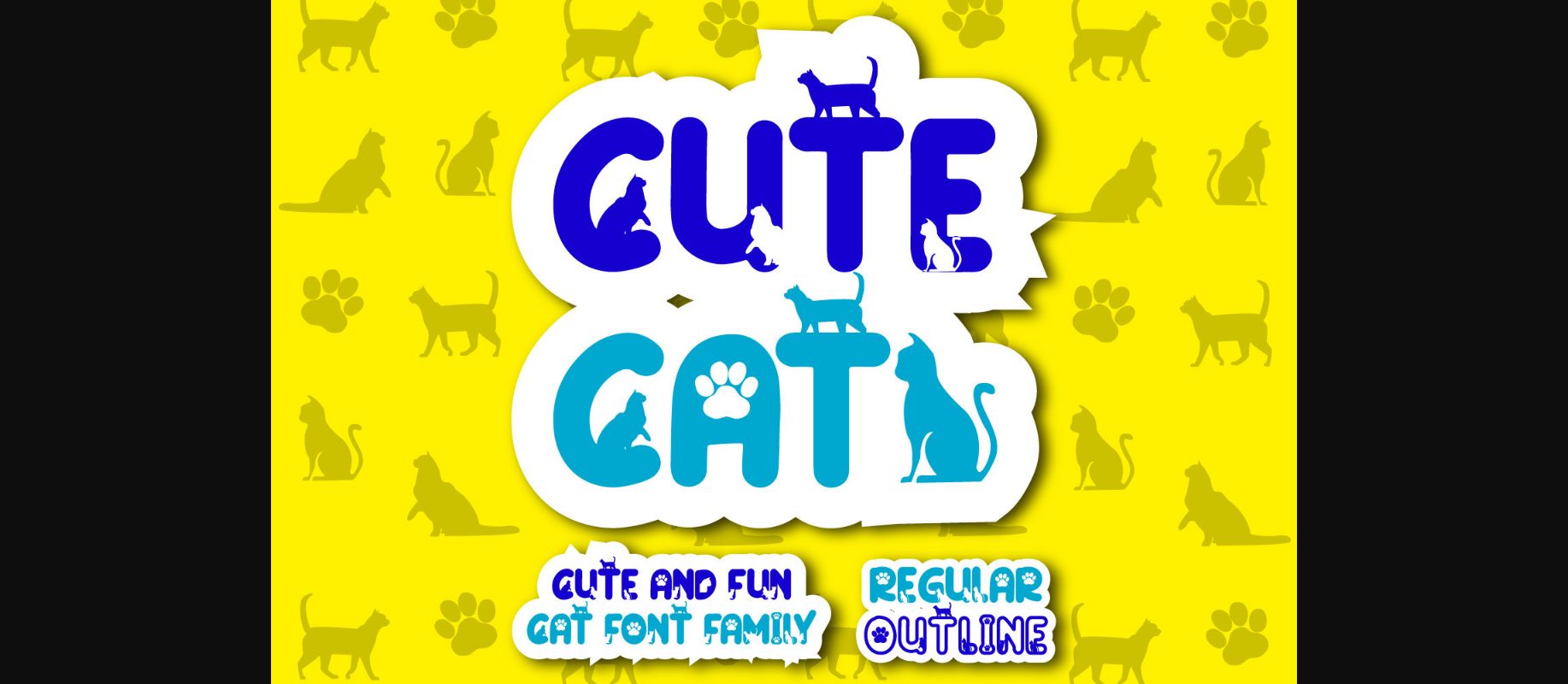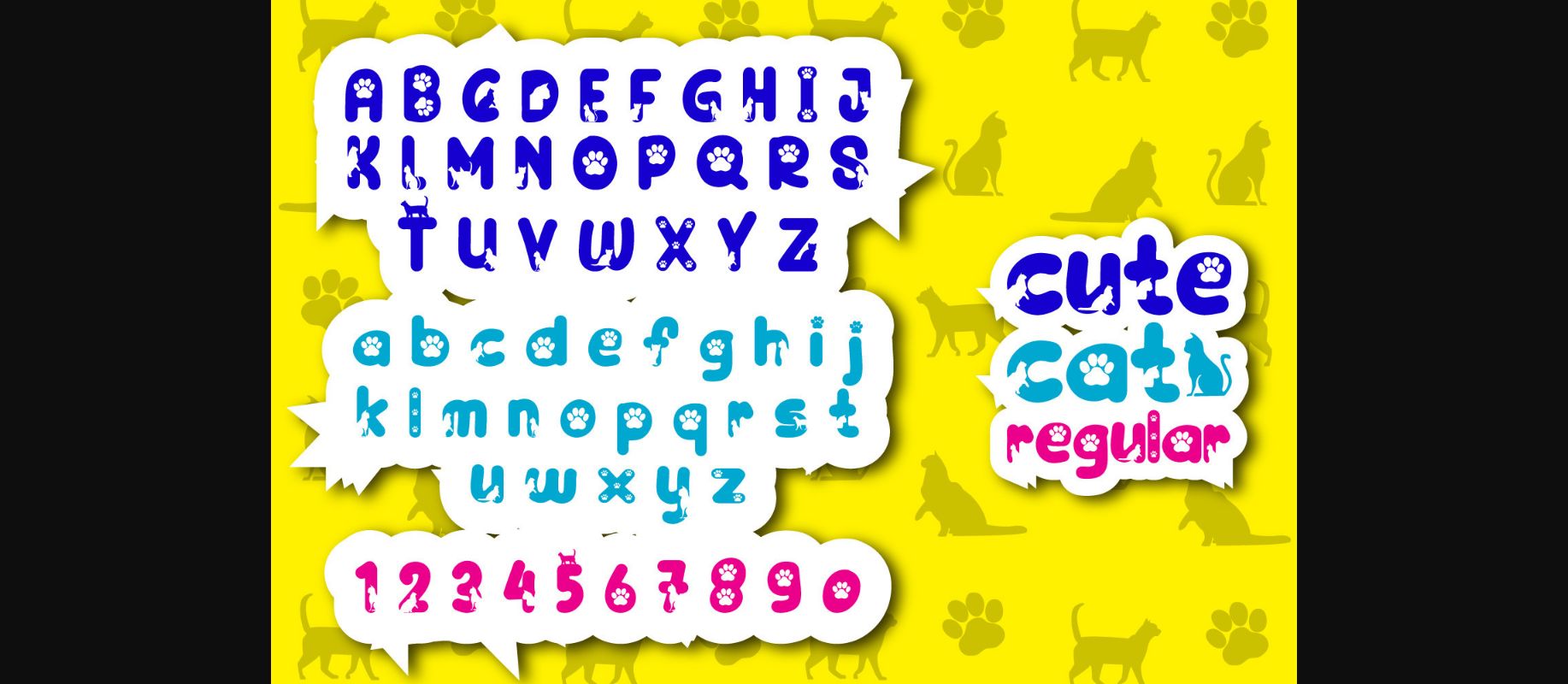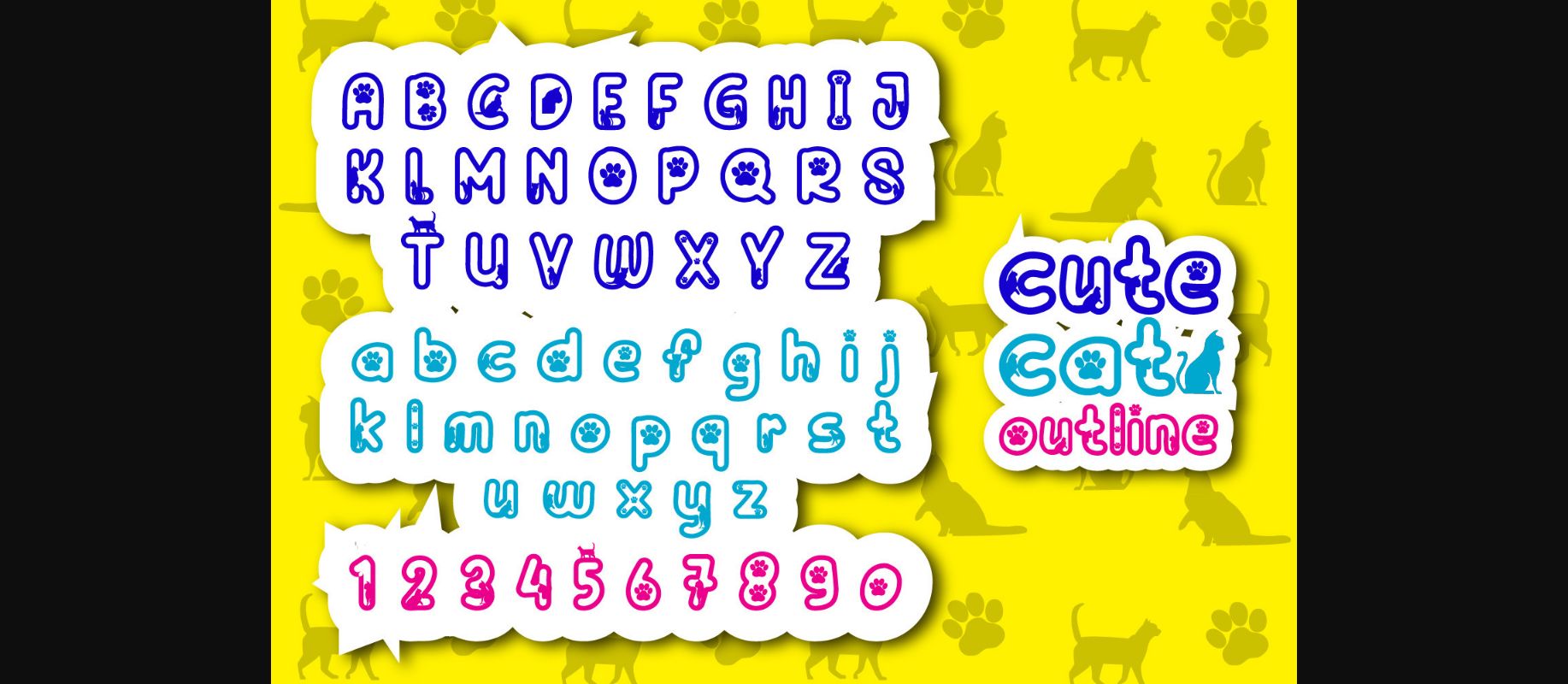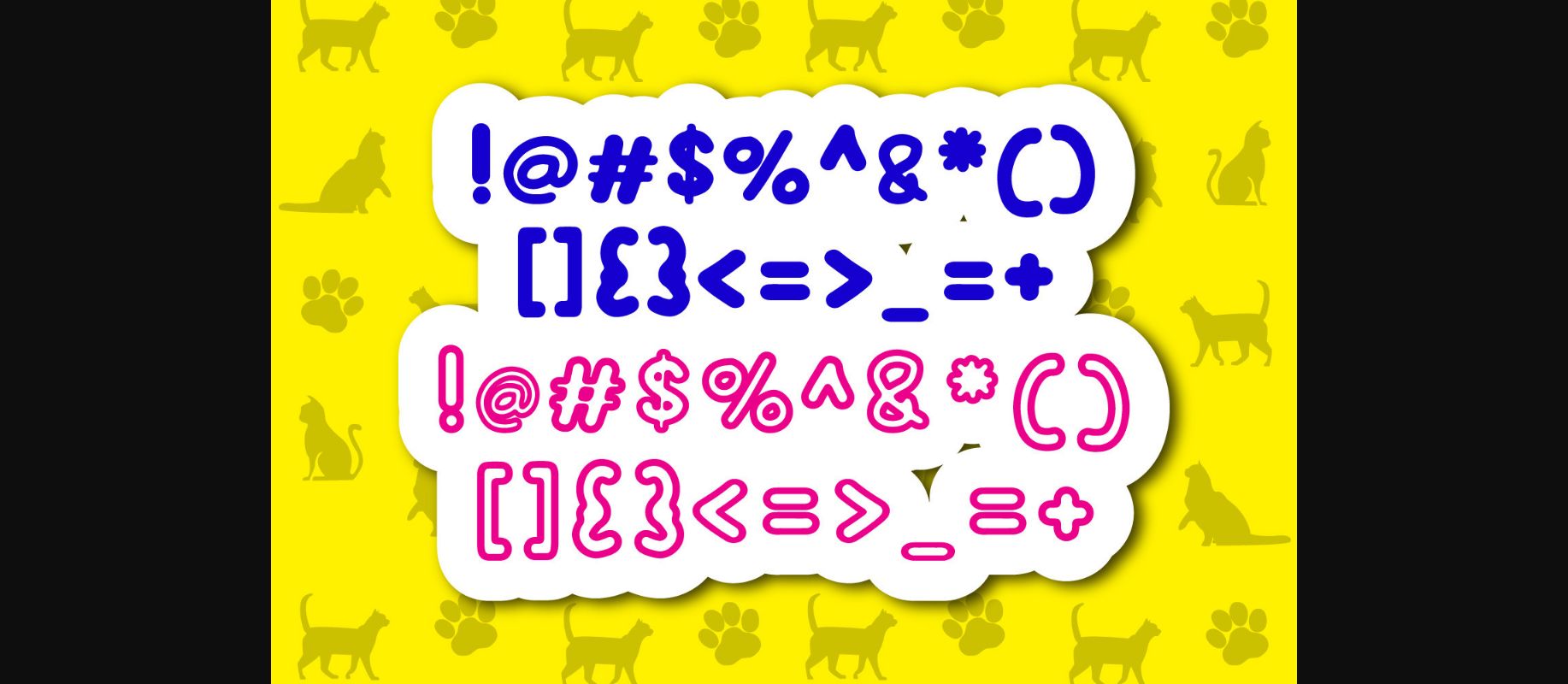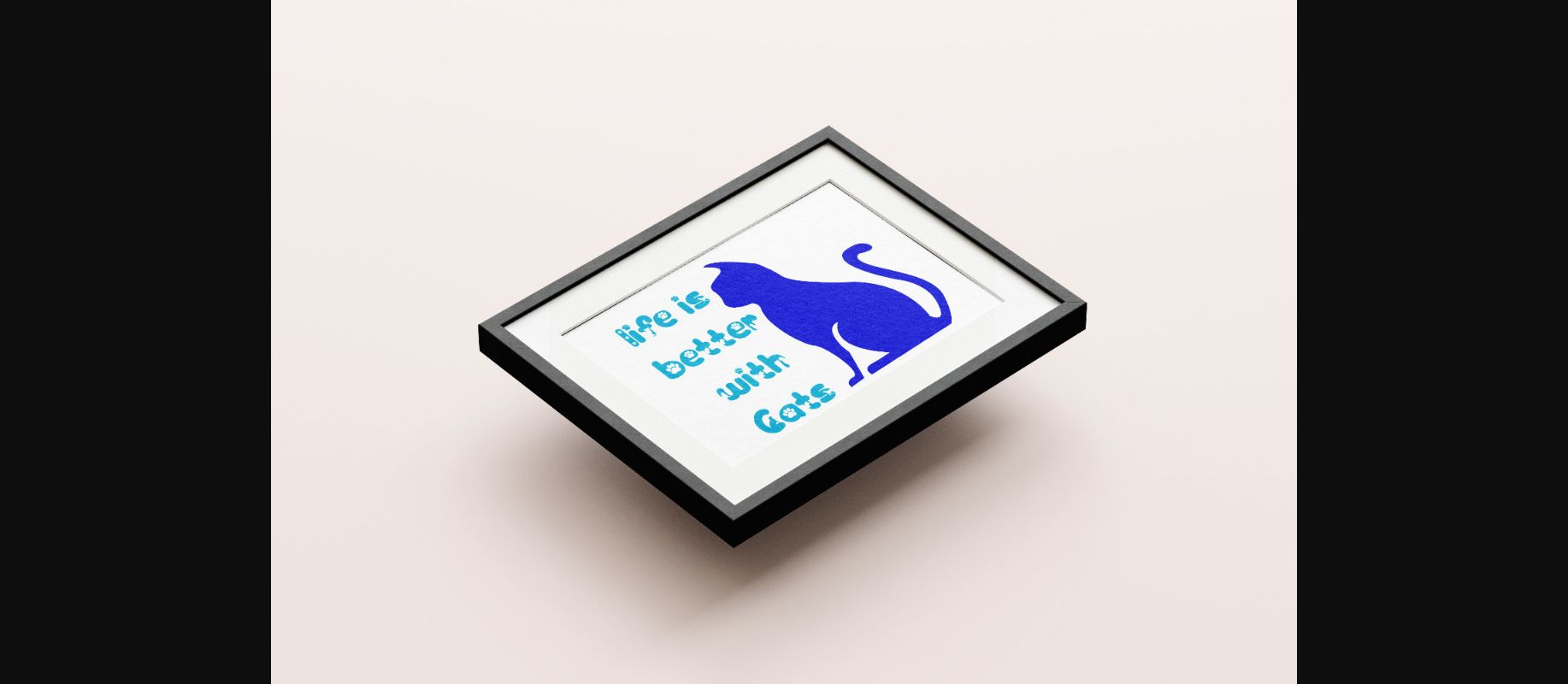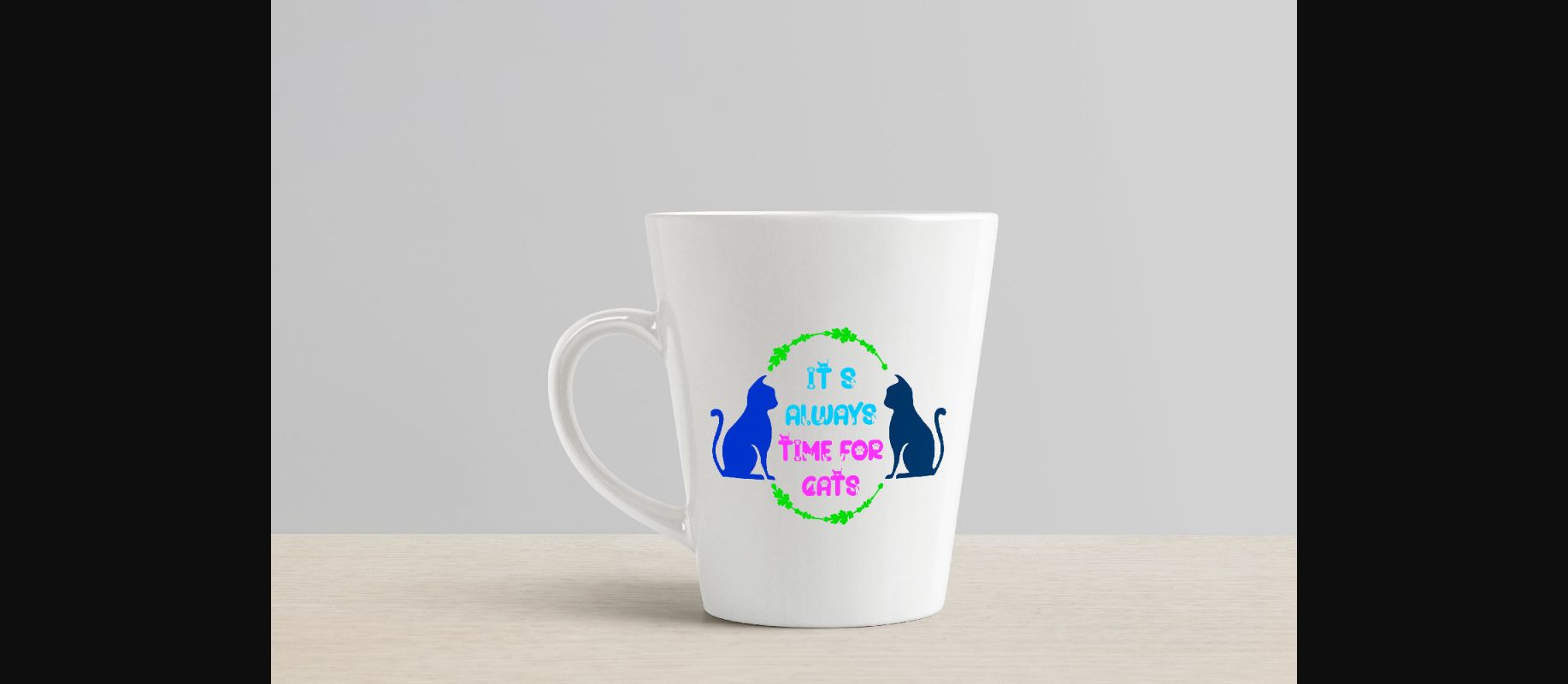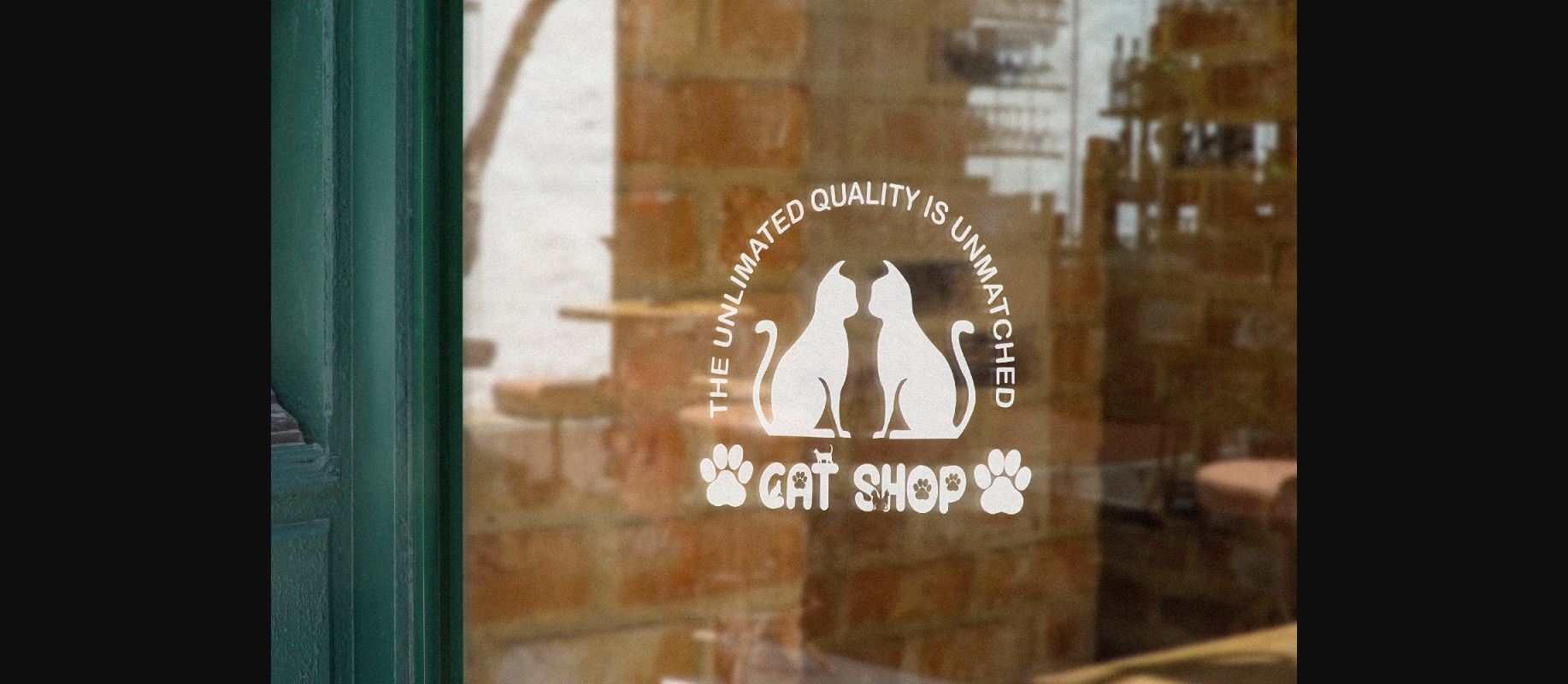
About Cute Cat Font
Cute Cat is a cute and lovable decorative font. It embodies fun and authenticity and is the perfect choice for children’s activities, crafts or t-shirt designs.